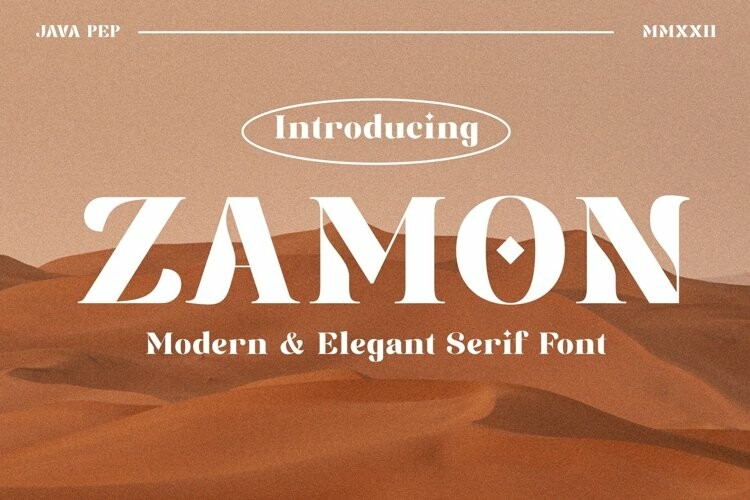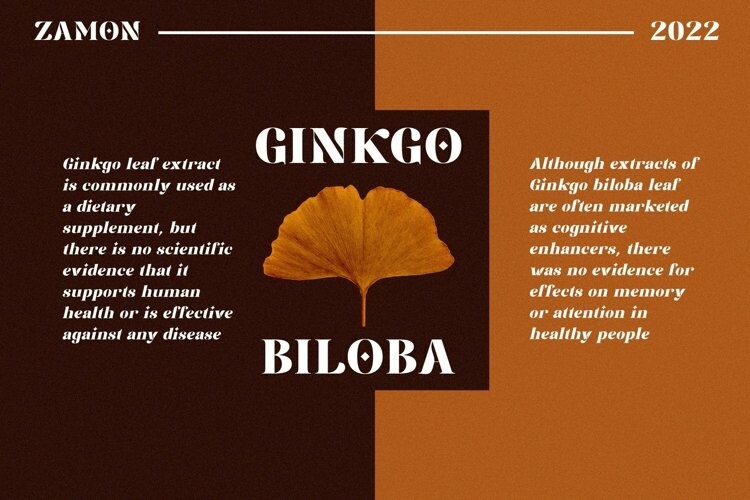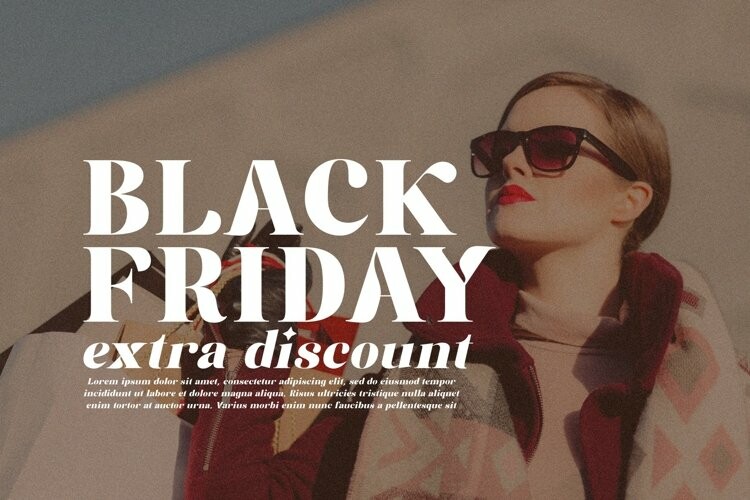
Zamon Font
Zamon FontProudly present the newest modern serif font called Zamon. This font is elegant and perfect for the headline, title, logotype, fashion, quote text, publishing, etc. Zamon also comes in an oblique style so you can pair it to make contrast and to highlight purpose.